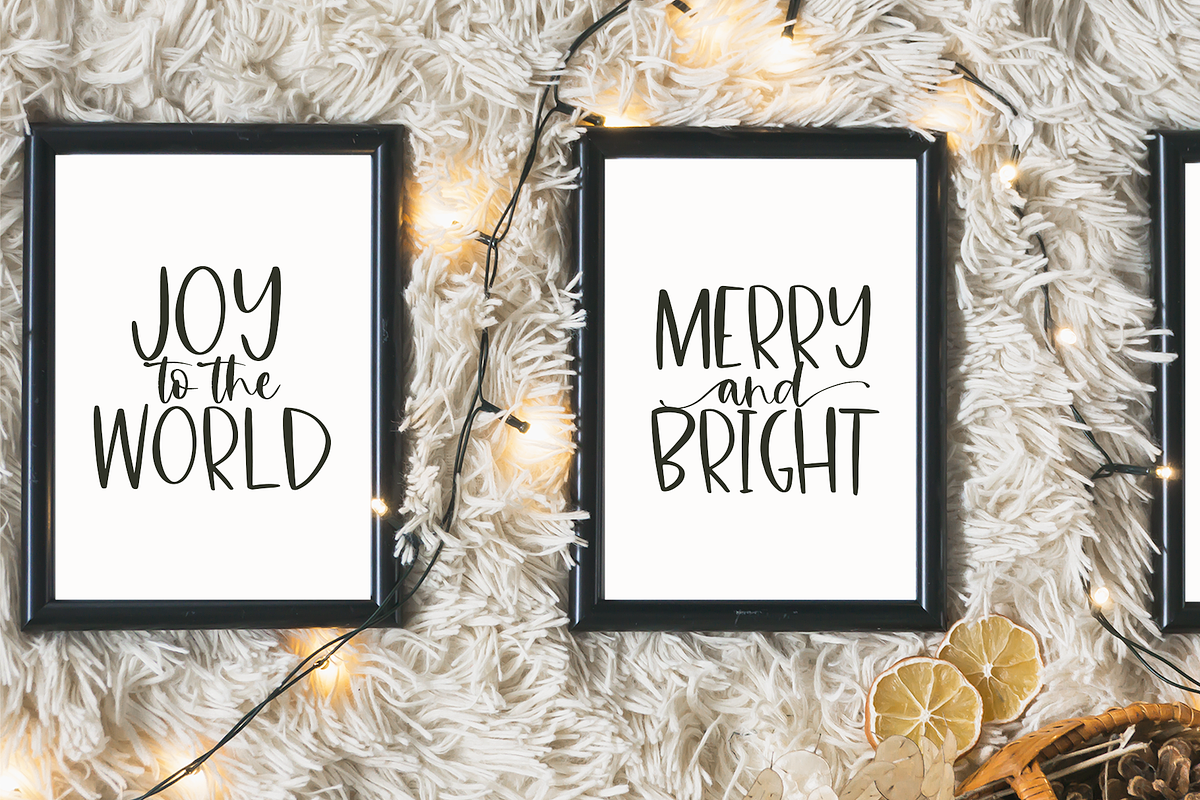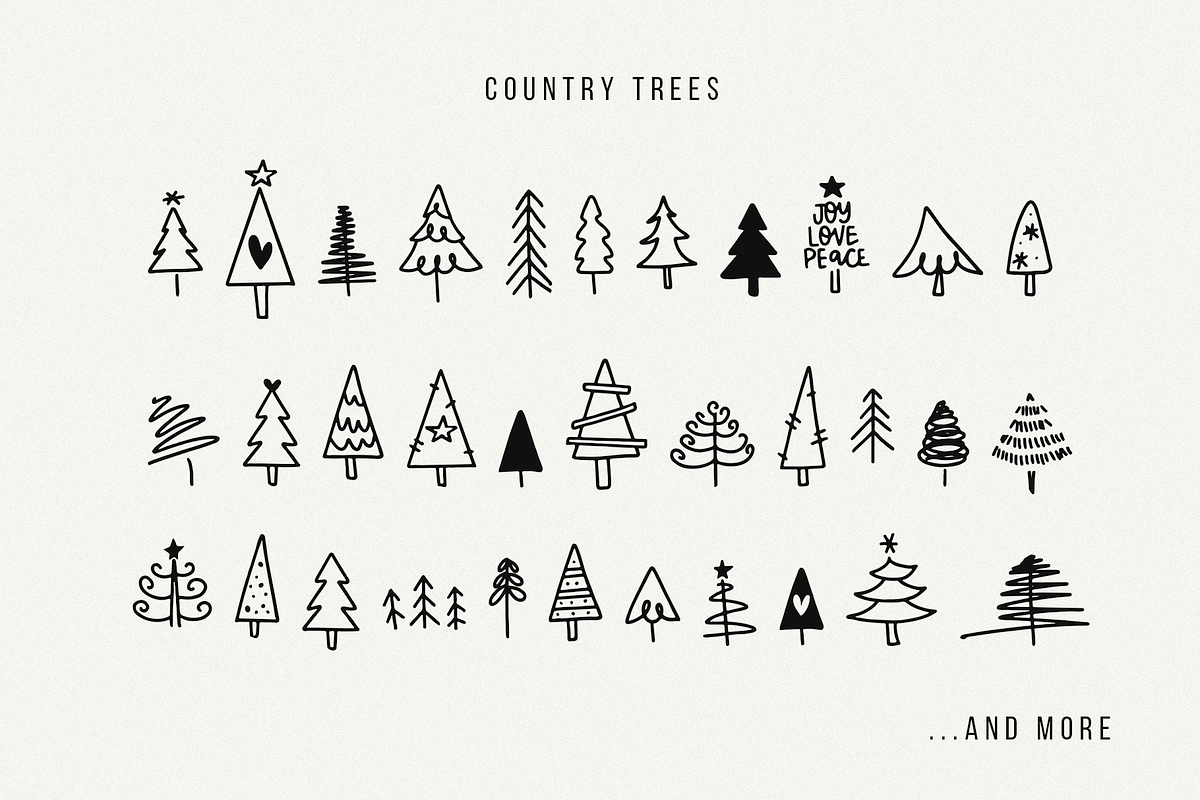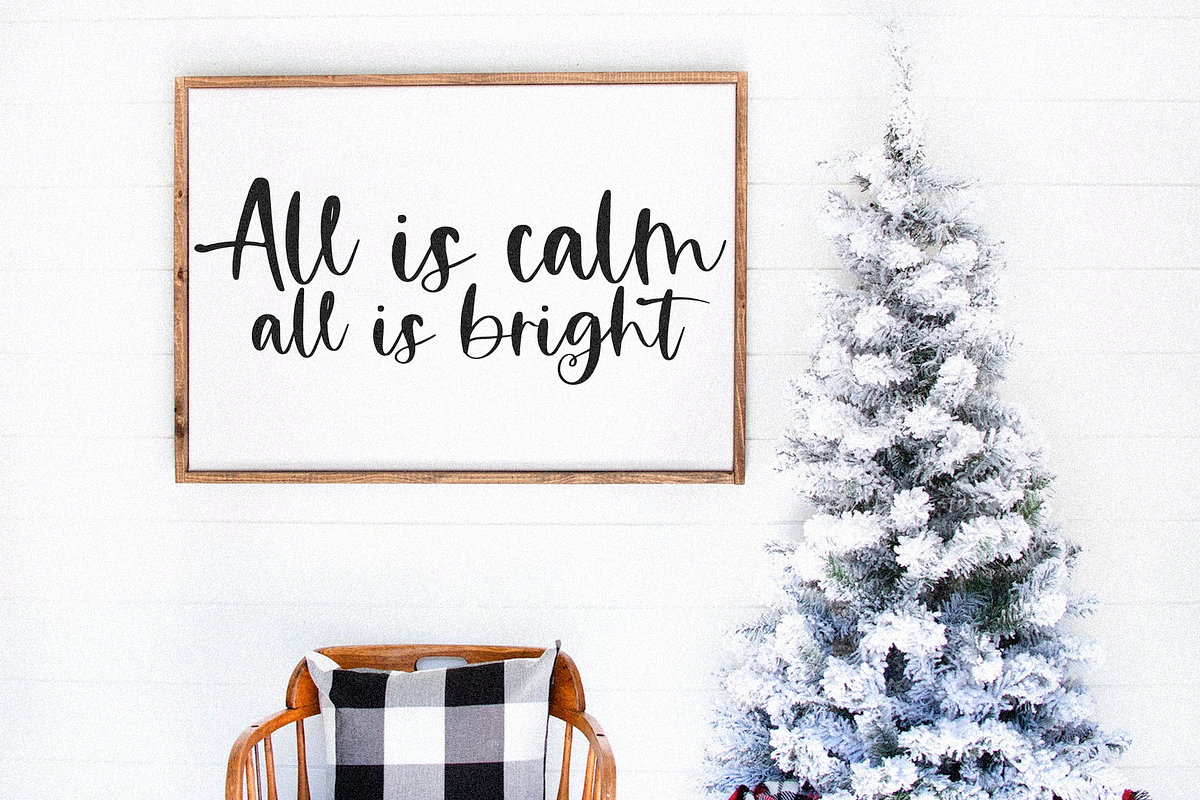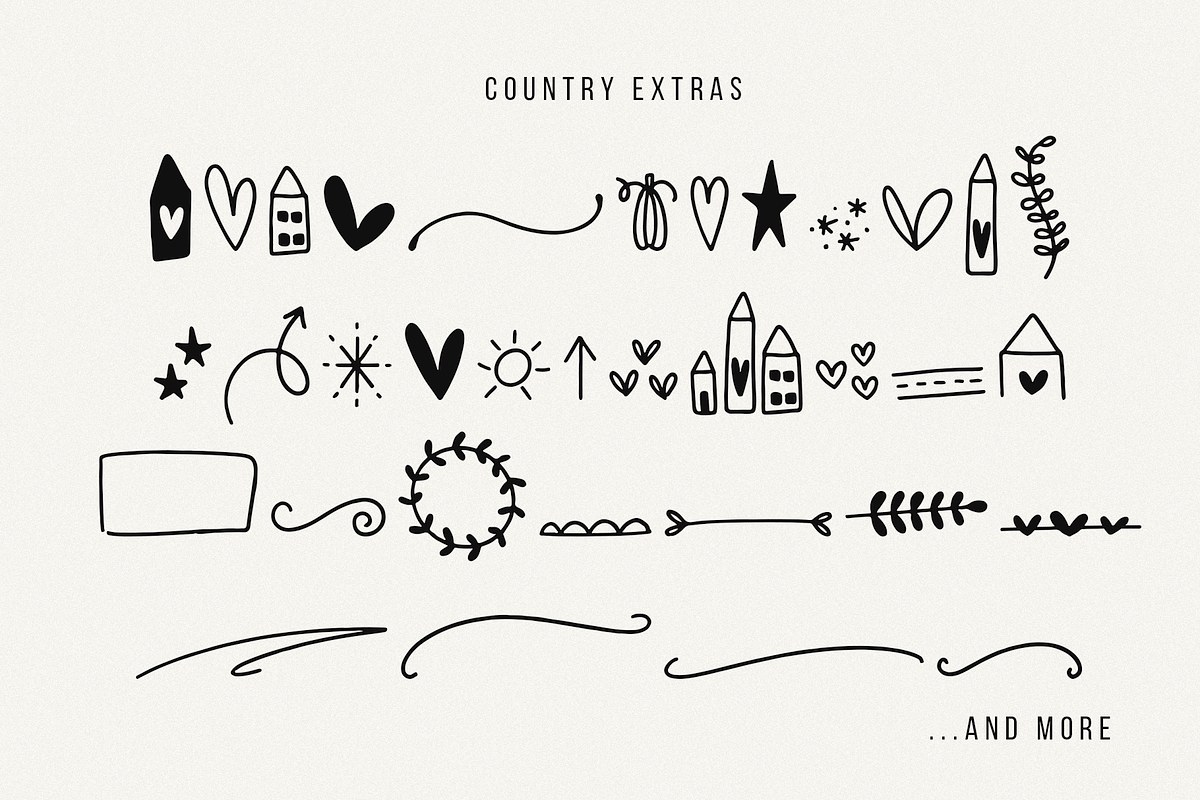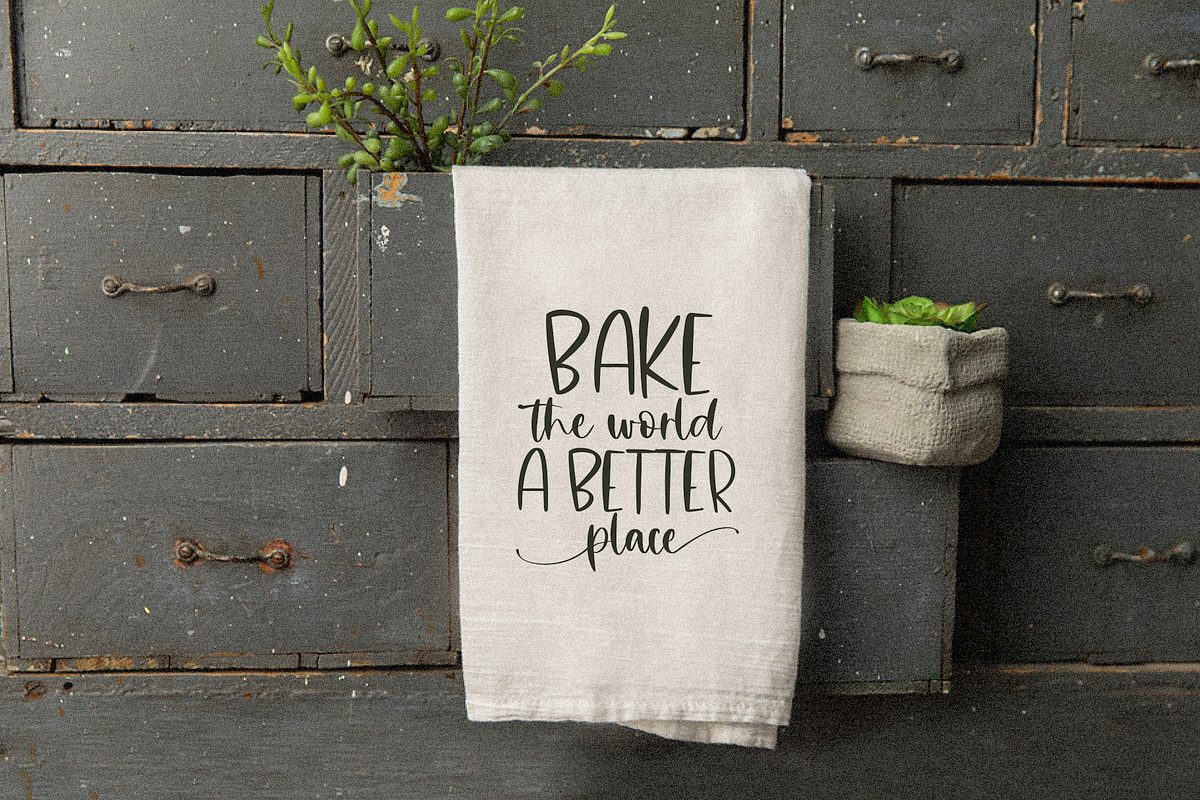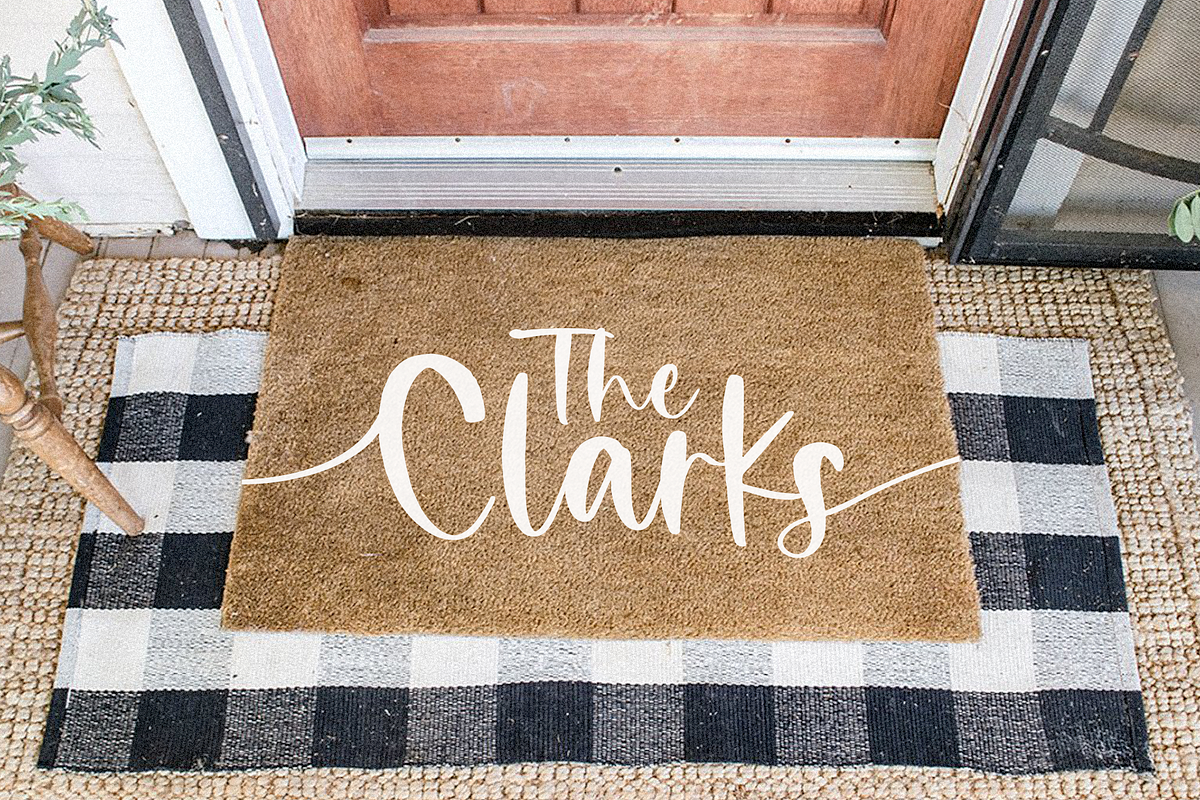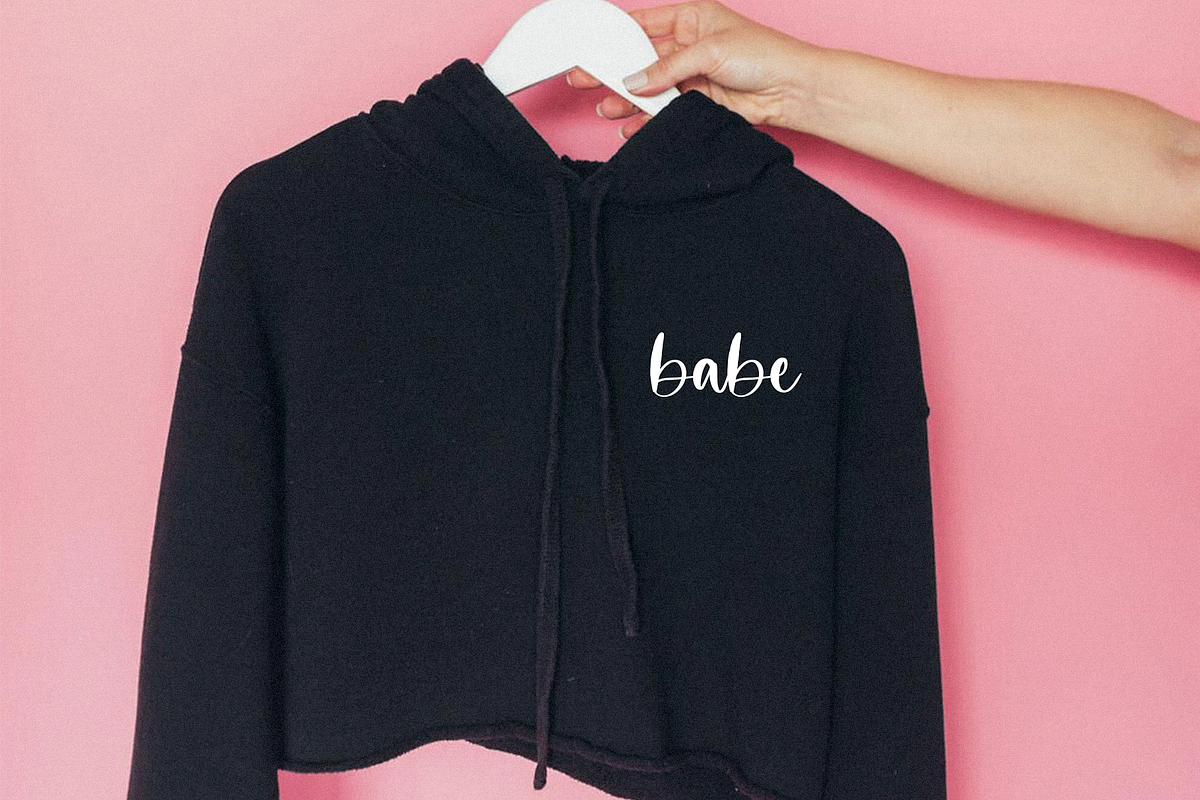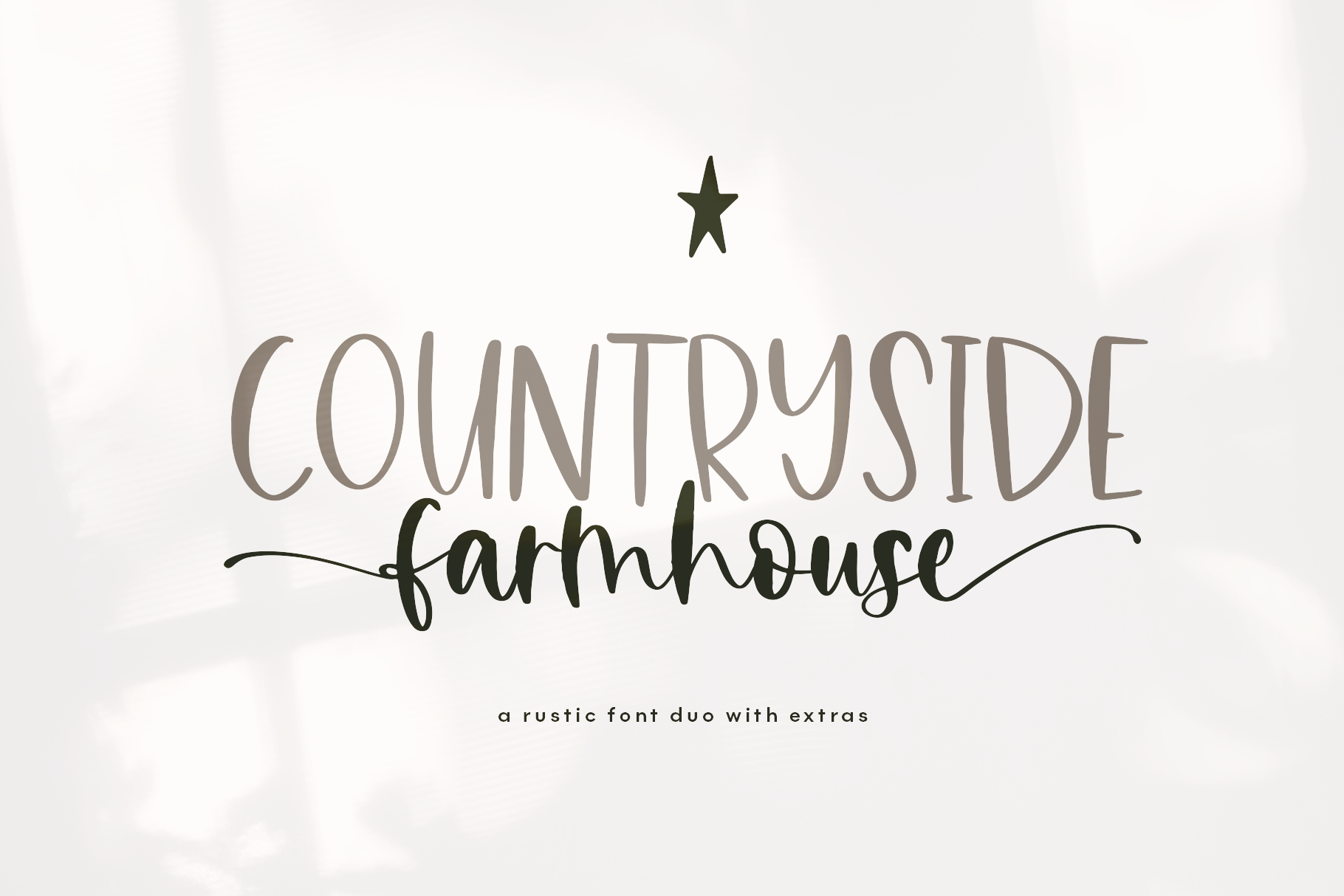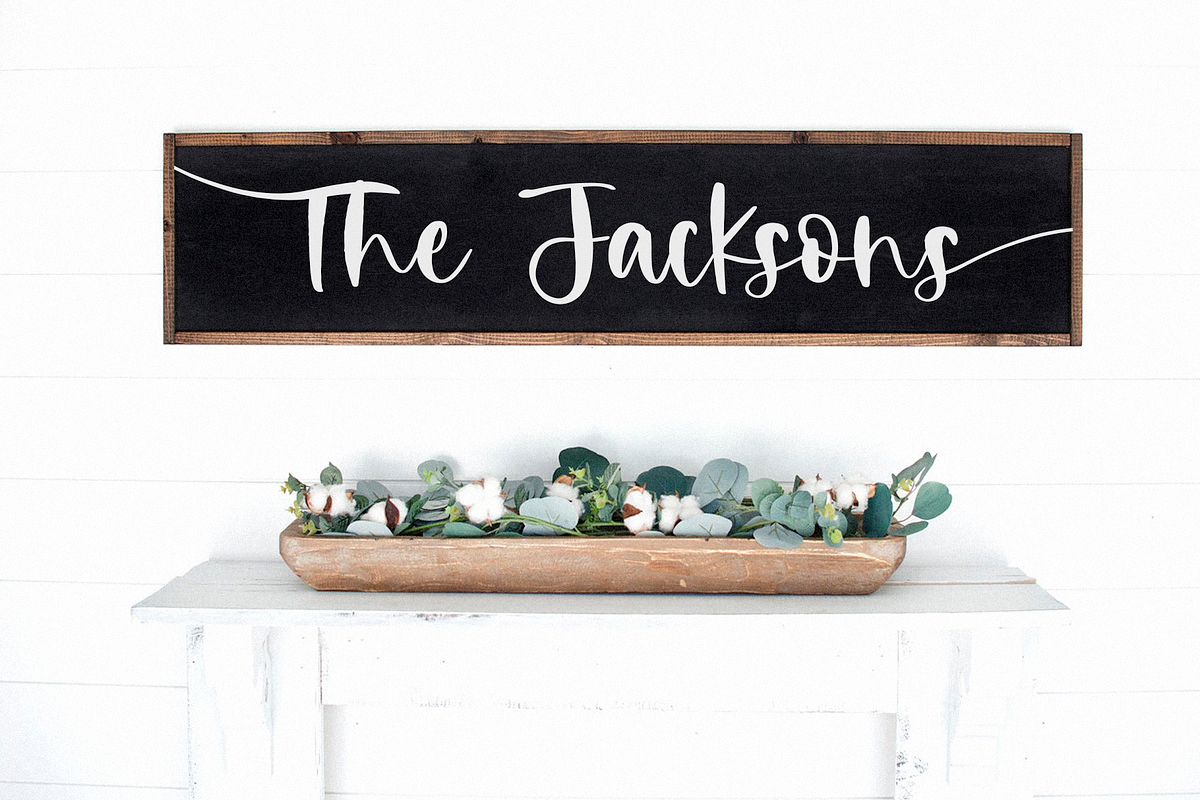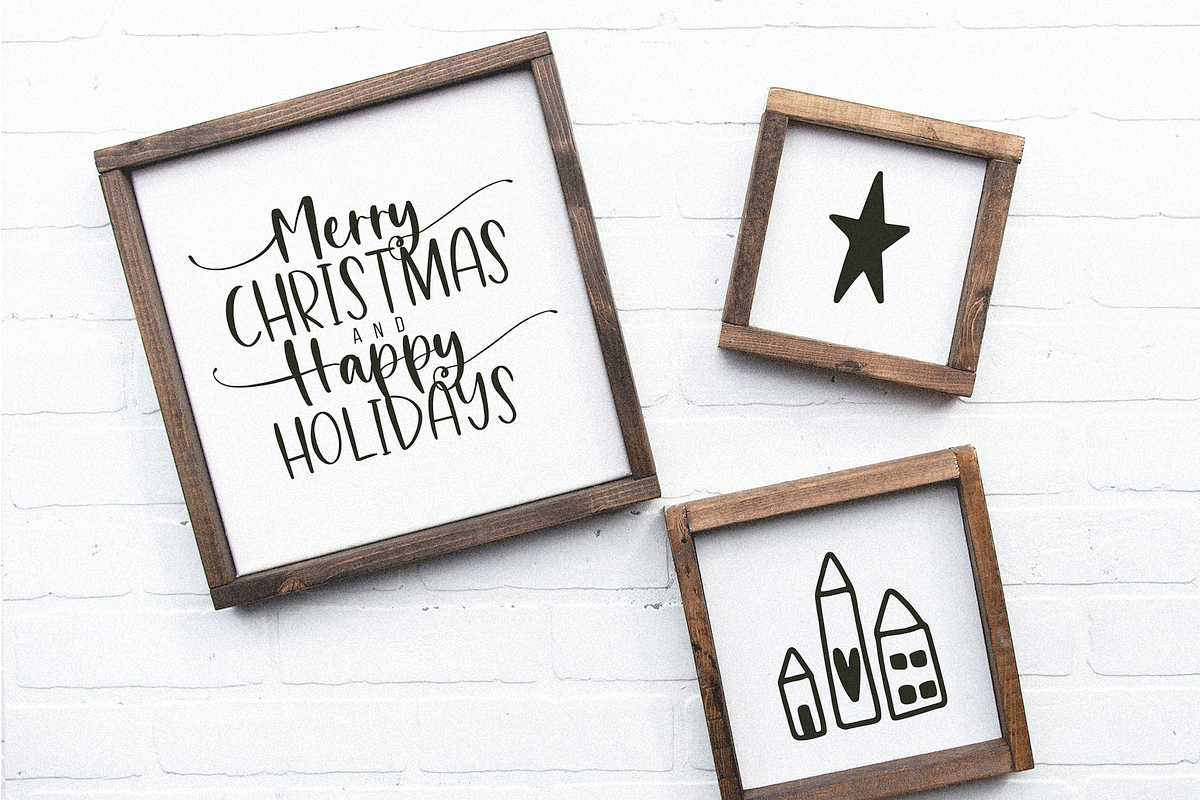
Countryside Farmhouse - Font Duo
Countryside Farmhouse is a rustic handwritten font duo. This font pack is perfect for all of your farmhouse designs and country projects. This duo is especially perfect for branding, logos, home decor signs, business cards, social media, advertisements and more!
- Countryside : Tall & skinny caps font
- Farmhouse Script : Rustic handwritten script
- Country Trees : 52 rustic trees in font form
- Country Extras : 52 extra elements in font form
Farmhouse script includes a full set of alternate letters with ending and beginning swashes. These letters are embedded into the font file. Please make sure you know how to access alternate characters in the design program of your choice.